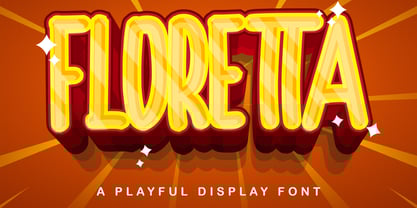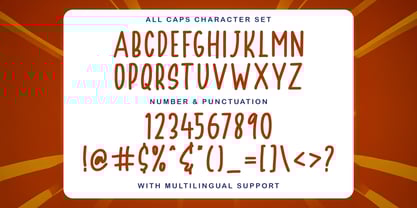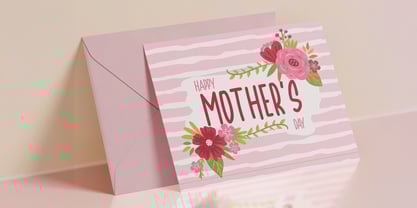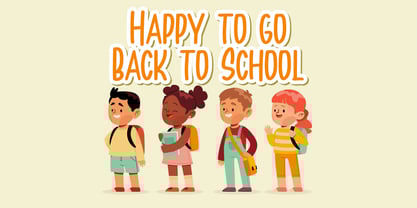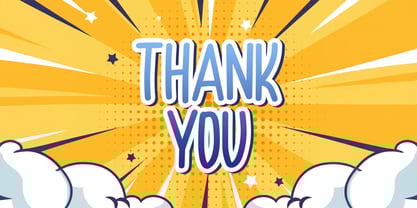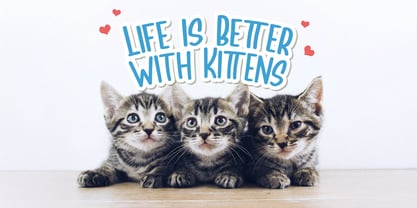
The Floretta Font Family was designed by Virgiawan Listanto and published by Stringlabs Creative Studio. Floretta contains 1 styles.
FLORETTA is a fun and whimsical display font bursting with charm and personality. With its bubbly shapes, joyful curves, and cheerful vibe, this font is perfect for designs that aim to be lighthearted, creative, and full of life. Ideal for kids projects, branding, packaging, and anything that needs a touch of playful energy, FLORETTA brings a delightful flair to every letter.